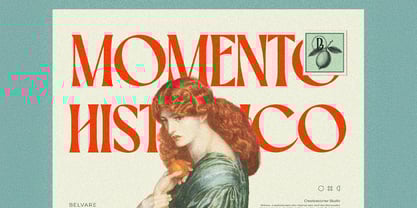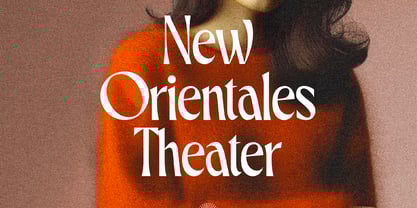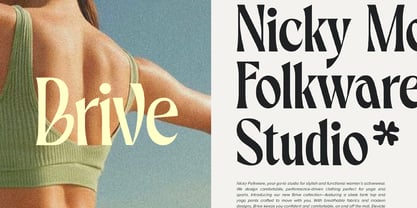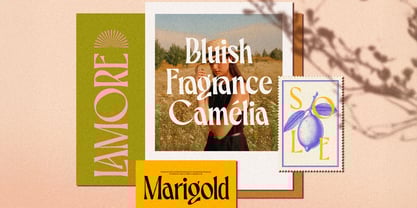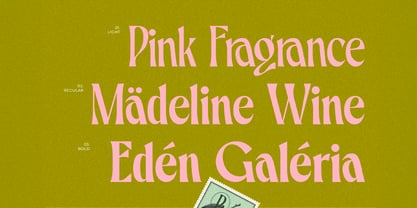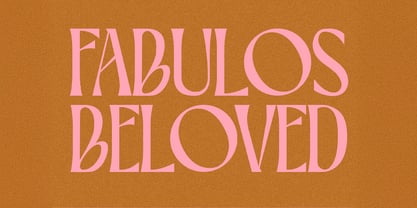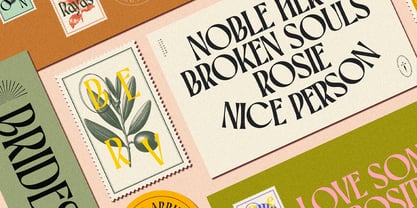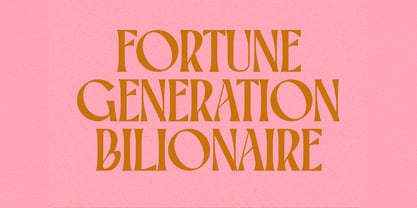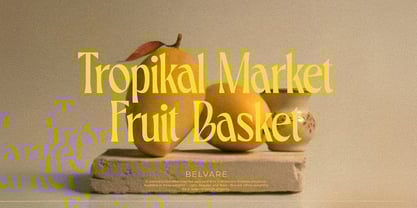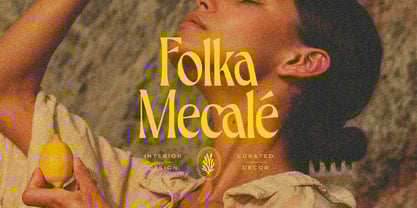
CCS Belvare
by Creative Corner Studio
The CCS Belvare Font Family was designed by Kurt Harahap and published by Creative Corner Studio. CCS Belvare contains 3 styles and family package options.
Introducing Belvare, a sophisticated retro-inspired Serif font that exudes timeless elegance. Available in three weights – Light, Regular, and Bold – Belvare offers versatility for a range of design projects. Its rounded letter proportions create a friendly and approachable feel, while the condensed glyphs and distinctive large, rounded O and C characters add a touch of unique character. A carefully curated selection of alternates further enhances the font's rhythmic and dynamic personality. Belvare is perfectly suited for headlines, titles, branding, posters, and any project where a touch of retro charm and modern sensibility is desired.
Features:
- 3 Weights font
- Stylistic Alternates & Ligatures
- Multilingual